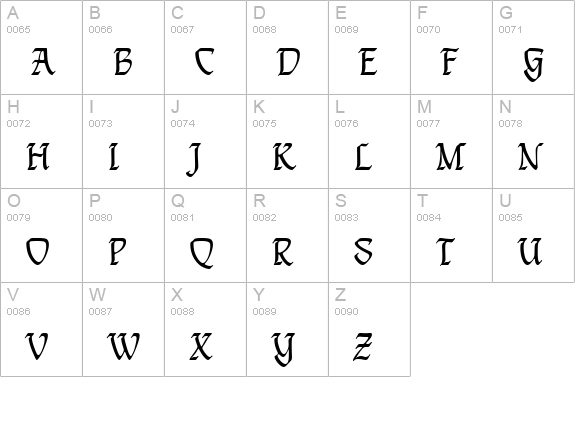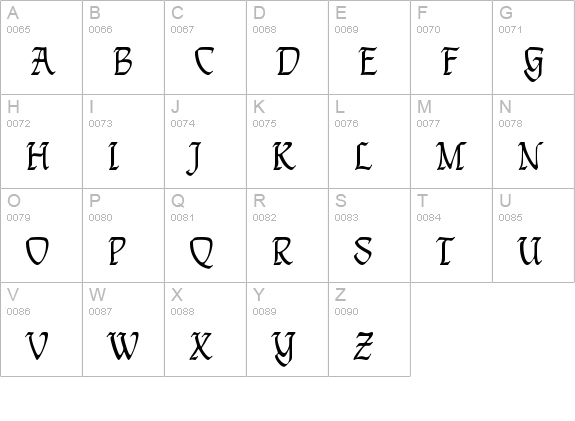
Limoges-Regular Font Details
Limoges-Regular is the standard, neutral variant in the Limoges typeface family \xE2\x80\x94 well suited to general body text, paragraphs, and standard typographic work.
Limoges-Regular font is a versatile and stylish typeface that exudes a sense of elegance and sophistication. With its clean lines and unique flair, this font is perfect for a wide range of design projects, from branding to editorial design. The classic yet modern look of Limoges-Regular font makes it a great choice for creating eye-catching headlines, signage, and more. What sets Limoges-Regular font apart is not just its aesthetic appeal, but also the fact that it is free to download at FontsMarket.com. This means that you can easily access this high-quality font for your projects without having to worry about breaking the bank. Whether you are a designer looking to elevate your work or a business owner in need of a fresh new look, Limoges-Regular font is sure to impress with its timeless appeal and accessibility.